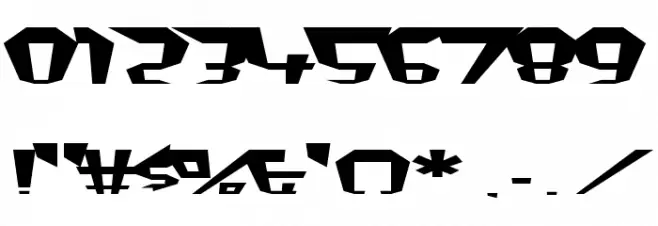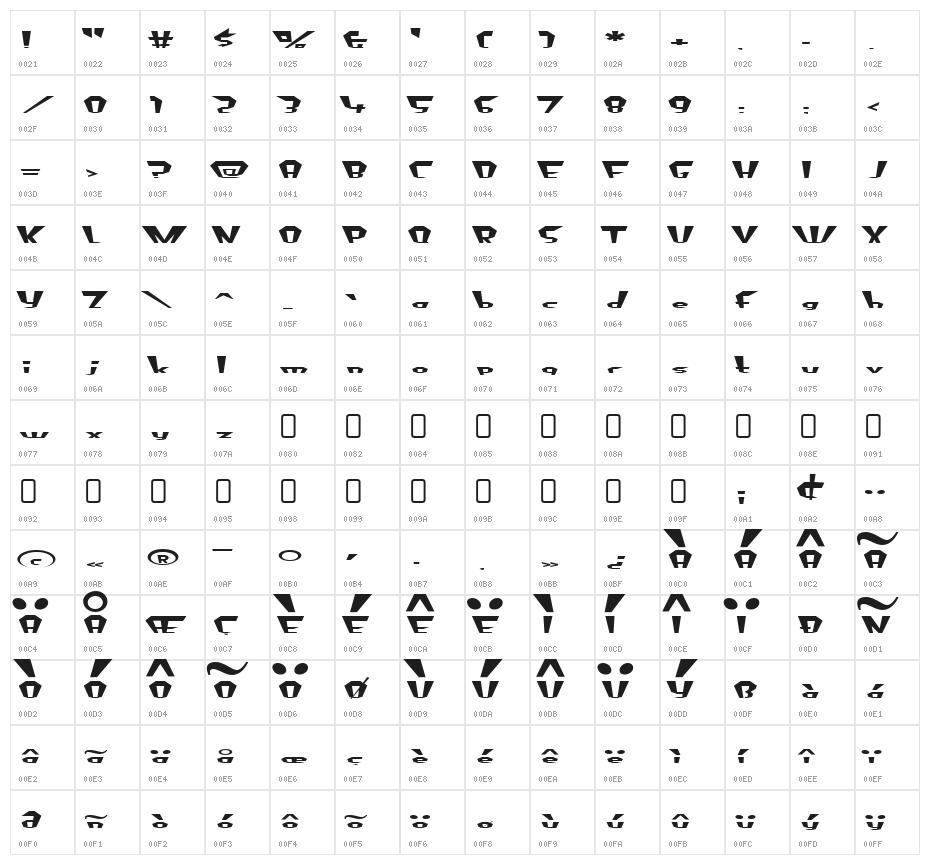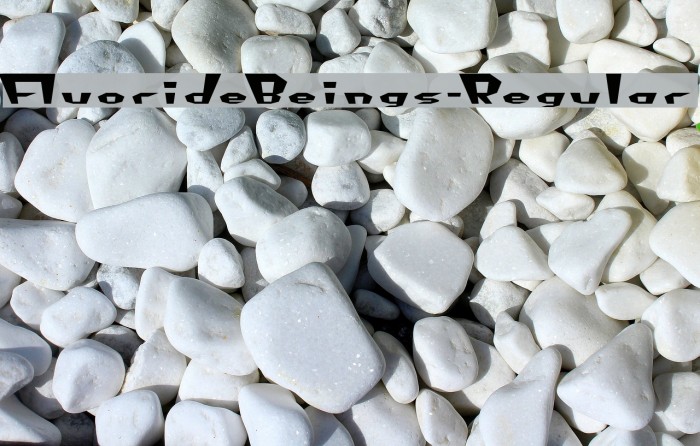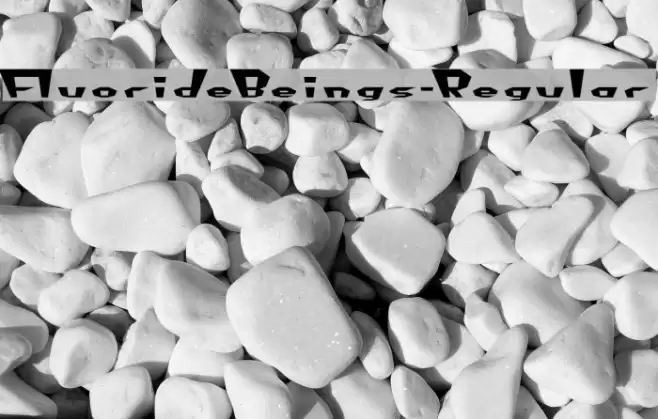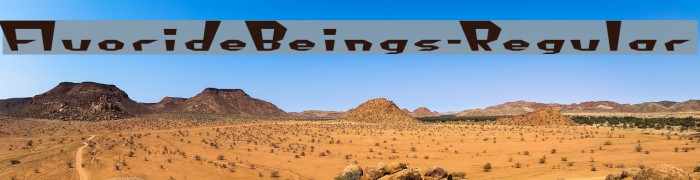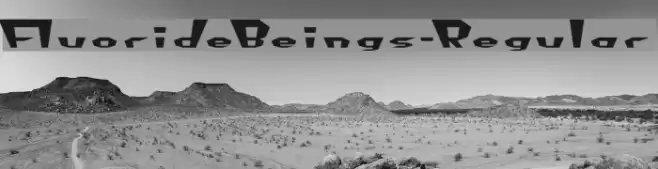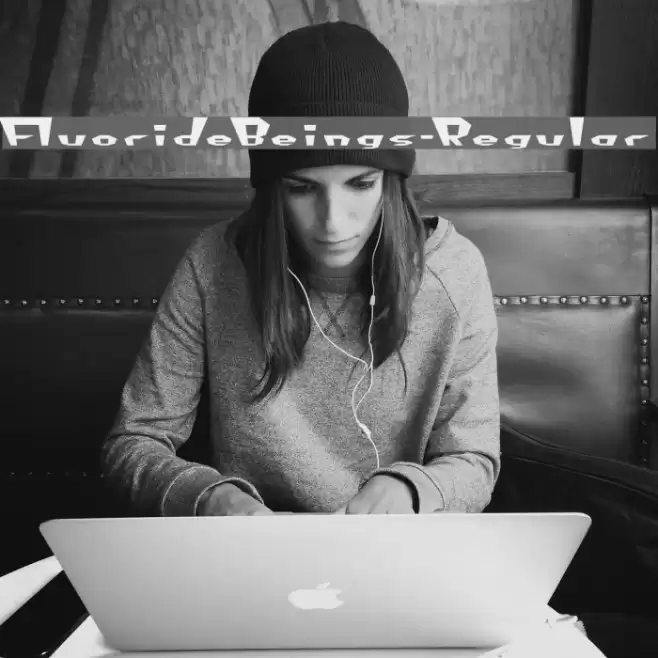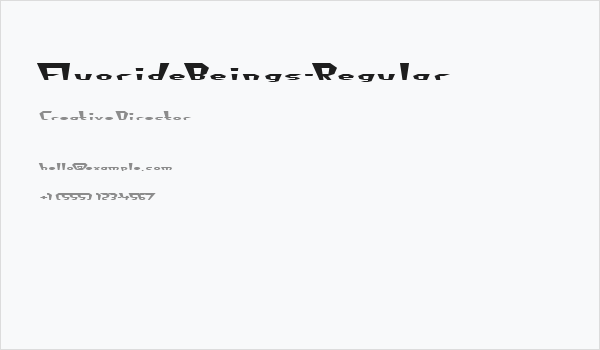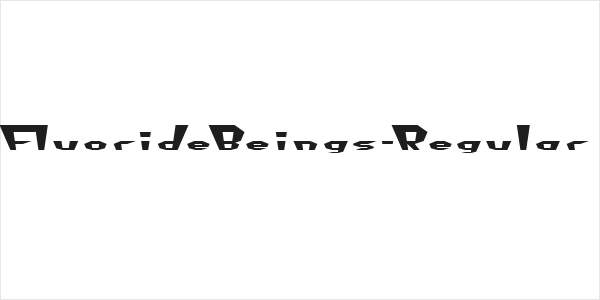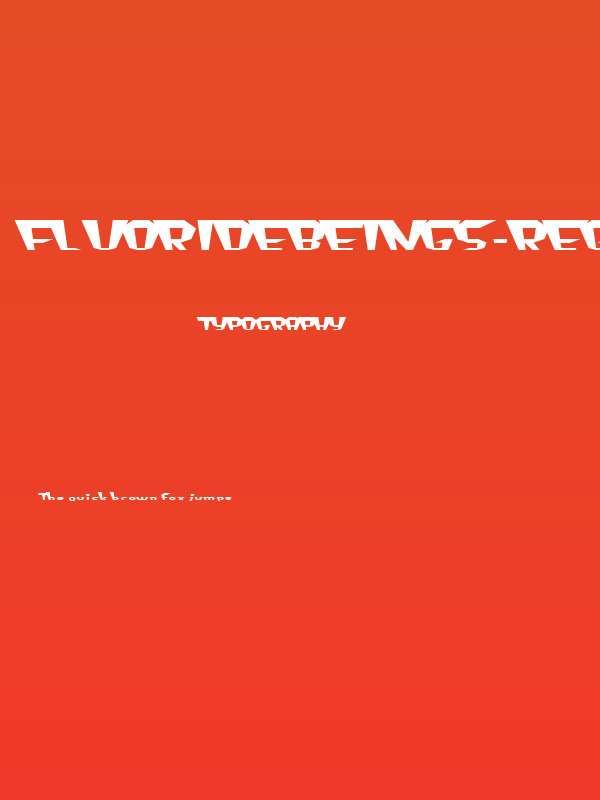
FluorideBeings-Regular Font
FluorideBeings-Regular Description
This font features a bold and angular design, characterized by sharp edges and a futuristic aesthetic. The letters are heavily stylized, with a geometric influence that gives them a unique, edgy appearance. The uppercase and lowercase letters maintain a consistent style, with the uppercase being more pronounced. Numbers and special characters follow the same angular theme, making the font cohesive across all characters. The overall look is modern and dynamic, suitable for projects that require a strong visual impact.
| Proposed Projects | Ideal for sci-fi themed designs, video game graphics, posters, and branding that requires a modern and edgy look. |